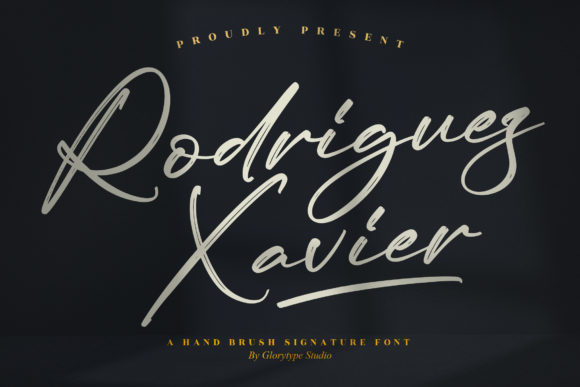
Introducing Rodriguez Xavier, the script font that will ignite passion and evoke timeless elegance in your designs. Inspired by the heartfelt essence of love letters, this font is meticulously crafted to convey the raw emotions and intimate connections that words hold.
Rodriguez Xavier's meticulously designed curves and graceful swashes mimic the fluidity and spontaneity of handwritten strokes, capturing the personal touch that makes every message feel like a whispered secret. Its PUA encoding empowers you to effortlessly access a world of stunning glyphs and ligatures, adding an extra layer of sophistication and charm to your creations.
Whether you're crafting invitations that whisper of romance, branding that exudes timeless appeal, or any project that calls for a touch of heartfelt artistry, Rodriguez Xavier is your perfect companion. This font will transform your designs into captivating expressions that speak directly to the heart.
Embrace the allure of the written word with Rodriguez Xavier. Let its elegant lines and enchanting details elevate your creations, making every message a masterpiece that resonates with emotion and timeless beauty.